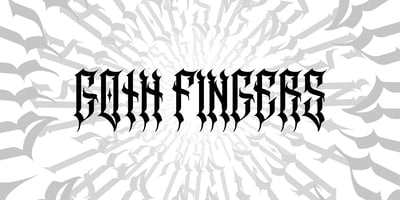
Goth Fingers
Goth Fingers font
Goth Fingers Font Family was designed by Renato Matos and published by Matosrs. Goth Fingers contains 1 styles and family package options. Goth Fingers is designed for designers or tattoo artists that need a gothic condensed font. It is recommended to use it for small texts, titles or even tattoo designs. I created this type using my experience as a tattoo artist for finger tattoos and other body parts that need a little more condensed letters. Hope you enjoy!